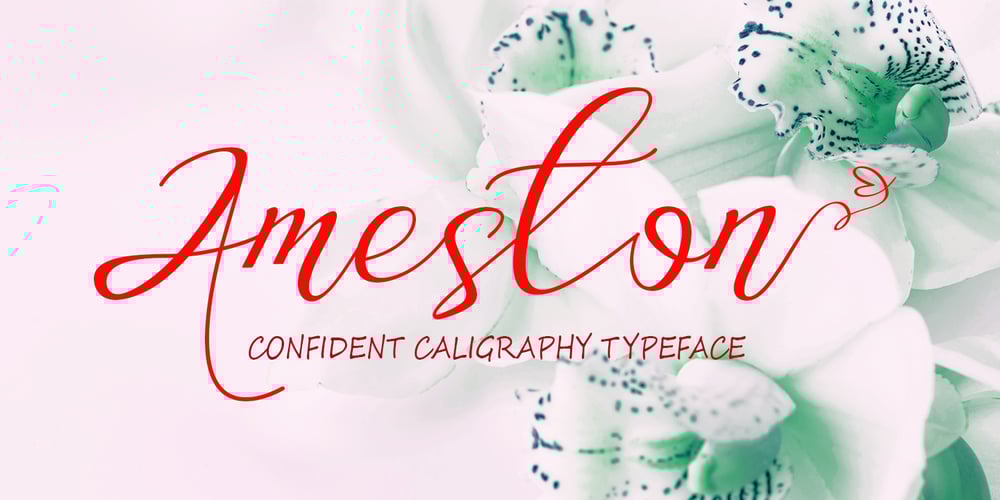
Ameston Font Family was designed by khaidir and published by Gatype. Ameston contains 3 styles and family package options. Ameston is an organic handwritten font suitable for branding, signatures, wedding invitations, promotions, product packaging and other necessities. This font is modern, simple, but still authentic. To enable the OpenType Stylistic alternative, you need a program that supports Adobe Illustrator CS, Adobe Indesign & CorelDraw X6-X7, Microsoft Word 2010 or a later version.How to access all alternative characters using Adobe Illustrator:https://www.youtube.com/watch?v=XzwjMkbB-wQ Ameston is coded with PUA Unicode, which allows full access to all additional characters without having to design any special software. Mac users can use Font Book, and Windows users can use Character Map to view and copy any additional characters for pasting into your favorite text editor / application.How to access all alternative characters, using the Windows Character Map with Photoshop:https://www.youtube.com/watch?v=Go9vacoYmBw